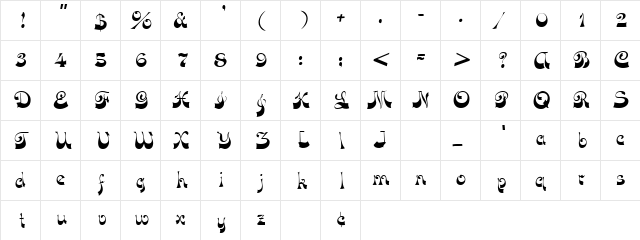
Opus Oblique
Design Context for Opus Typeface
Opus is a composed and adaptable typeface that performs quietly and consistently across a wide range of design contexts. The slanted form adds forward momentum and visual energy.
Pro Tip: Use Opus for emphasis, pull quotes, and subheadings where its slanted energy can add rhythm to the layout.